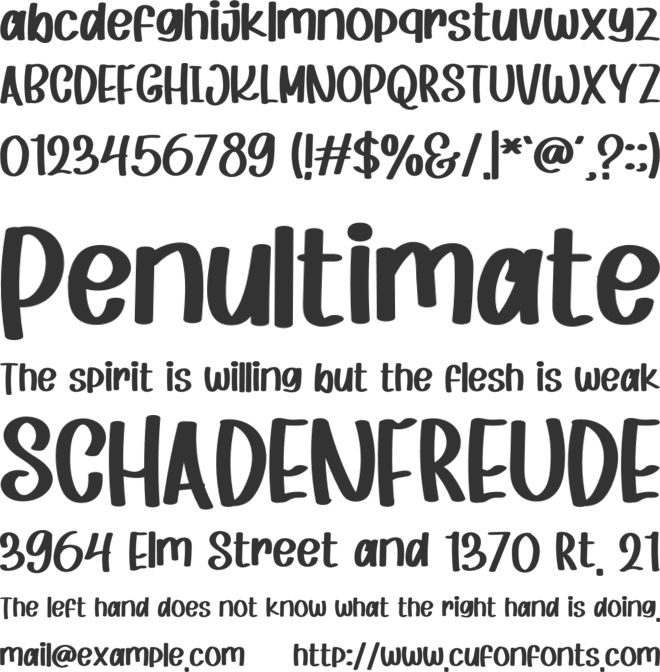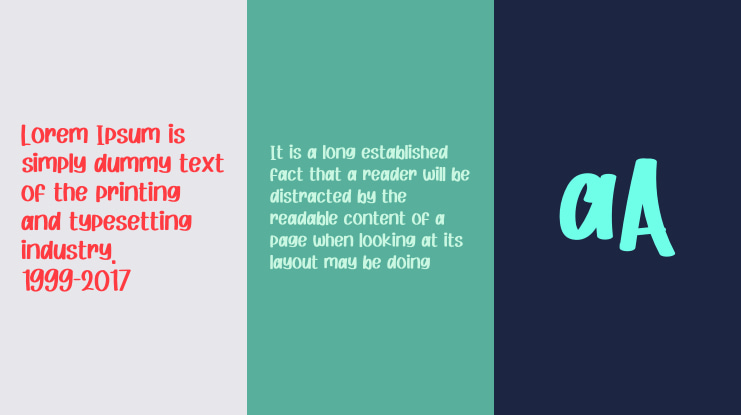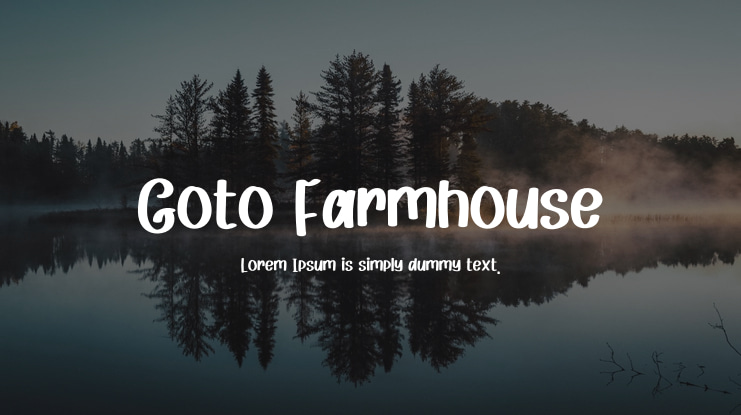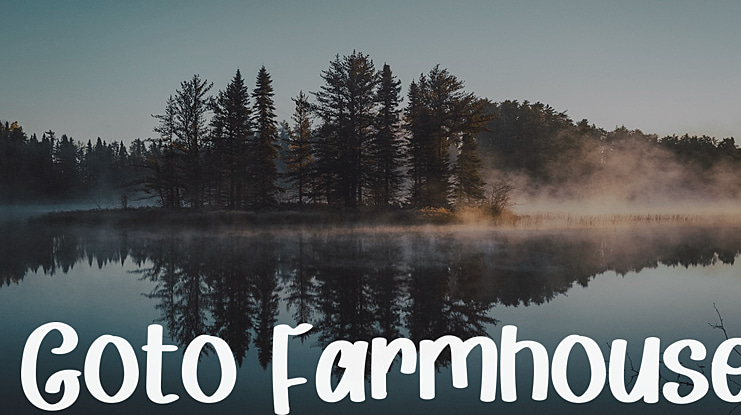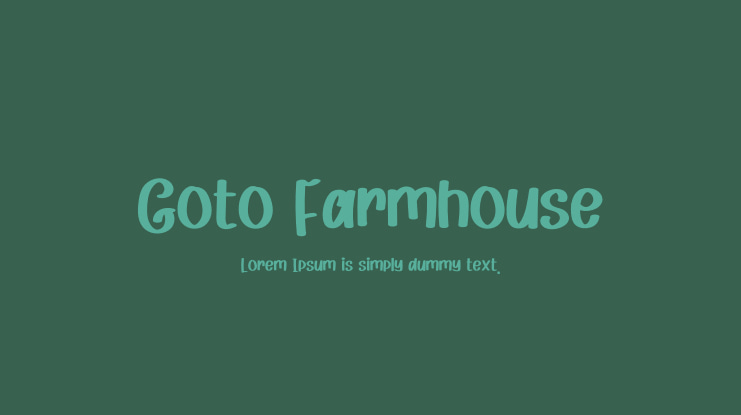
Goto Farmhouse Font Family
Aditya Rezki Apriyadi
Lets go to Farmhouse is a Handwritten Font duo that having a fun and happy concept, if you want to give your project fun and happy concept, you must try this one !